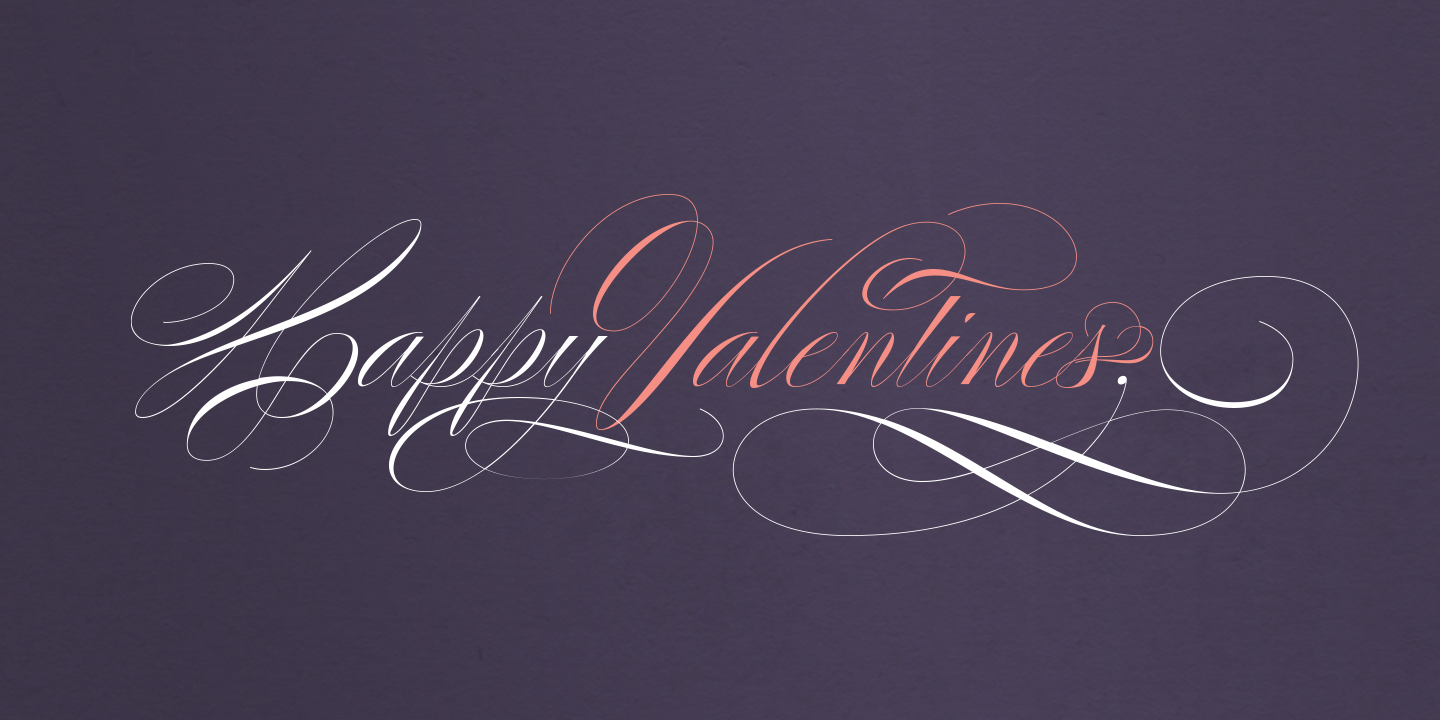
The Poem Script Pro Font is ideal for artistic poetry books, creative writing projects, inspirational quotes, handwritten-style branding, boutique cafe menus, artisanal product labels, romantic stationery designs, literary magazine layouts, and expressive social media graphics that require authentic handwritten charm.
What makes the Poem Script Pro Font so exciting is its remarkable ability to capture the intimate essence of personal handwriting while maintaining professional design standards. This extraordinary script typeface embodies the spontaneous flow of creative expression, featuring natural irregularities and organic character variations that give each word a unique, heartfelt quality. The font's artistic imperfections and human touches create an emotional connection with readers, making it perfect for projects that aim to convey authenticity, creativity, and personal storytelling.
The Poem Script Pro Font family includes regular, medium, and bold weights, complemented by an extensive collection of stylistic alternates, contextual ligatures, swashes, and decorative elements that enable designers to create truly personalized and expressive typography compositions.
Creative professionals and artistic brands consistently choose Poem Script Pro Font Free Download for its exceptional emotional impact and authentic character. This premium script typeface represents the perfect fusion of artistic expression and typographic functionality, providing designers with a powerful tool for creating meaningful visual narratives. Whether you're designing book covers for independent authors, crafting artisanal brand identities, developing personal stationery collections, or creating inspiring social media content, this font adds genuine warmth and personality to every project.
The thoughtfully designed letterforms of the Poem Script Pro Font showcase natural pen strokes with varying line weights and organic curves that replicate the nuances of actual handwriting. The careful attention to character spacing and baseline variations ensures that text flows naturally while maintaining excellent readability across different applications and sizes.
Typography artists and creative directors appreciate the font's advanced OpenType features, which include intelligent contextual alternates that automatically vary character forms based on surrounding letters, creating seamless connections and preventing repetitive patterns that might compromise the handwritten authenticity.
For individuals and businesses seeking to communicate creativity, authenticity, and personal connection through their visual identity, the Poem Script Pro Font offers an unparalleled typography solution. Its expressive nature and professional quality make it particularly suitable for independent publishers, creative agencies, artisanal food brands, and lifestyle businesses that value genuine human connection and artistic expression.
The font's optimization for both print and digital applications ensures consistent performance across various media platforms, while its comprehensive language support and extensive glyph set make it accessible for international creative projects requiring expressive script typography that resonates with diverse audiences seeking authentic, heartfelt communication.